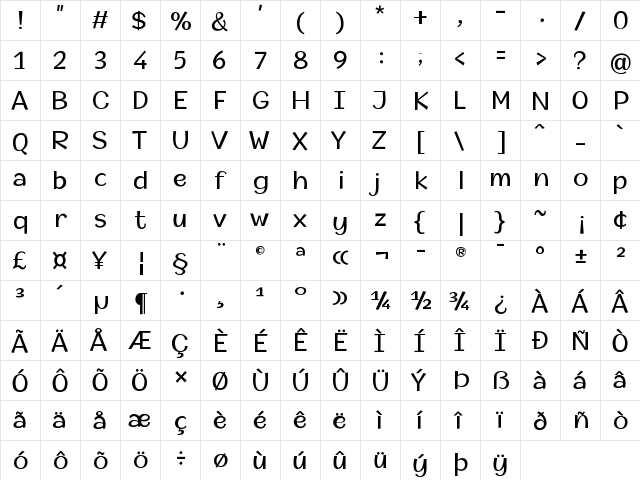
Champigna Regular
Design Context for Champigna Typeface
Champigna is a composed and adaptable typeface that performs quietly and consistently across a wide range of design contexts.